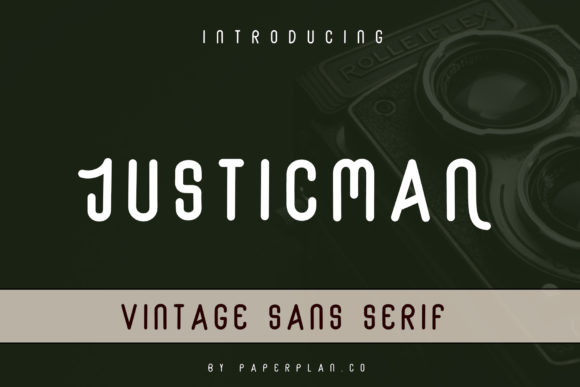
Behold the remarkable Justicman font, a sans serif masterpiece meticulously crafted by Nest Studio. This font is more than just a collection of characters; it's an expression of modern elegance and sophistication. Let Justicman's clean lines and sharp edges elevate your designs to new heights of beauty and precision.
The sans serif nature of this font exudes a minimalist charm that perfectly complements any project, from sleek logos and branding to eye-catching social media posts. It's the perfect choice for designers seeking a font that's both timeless and fashion-forward.
With Justicman, you'll discover unlimited creative possibilities. Unleash your imagination and craft designs that exude confidence and style. Say goodbye to the ordinary and embrace the extraordinary. Let Justicman be your trusted companion on your design journey, turning your ideas into breathtaking realities.
But Justicman is not just a pretty face; it's also astonishingly versatile. Whether you're working on a website, an advertisement, or a poster, Justicman adapts flawlessly to any medium, ensuring your designs shine in every context.
Don't settle for mediocre fonts that blend into the background. Choose Justicman and embark on a design adventure that will leave a lasting impression. Let your creativity soar as you bring life to your projects with this captivating font.
And remember, life's too short to use boring fonts. Dare to be different, dare to stand out. Let Justicman be your secret weapon, propelling you to design stardom.